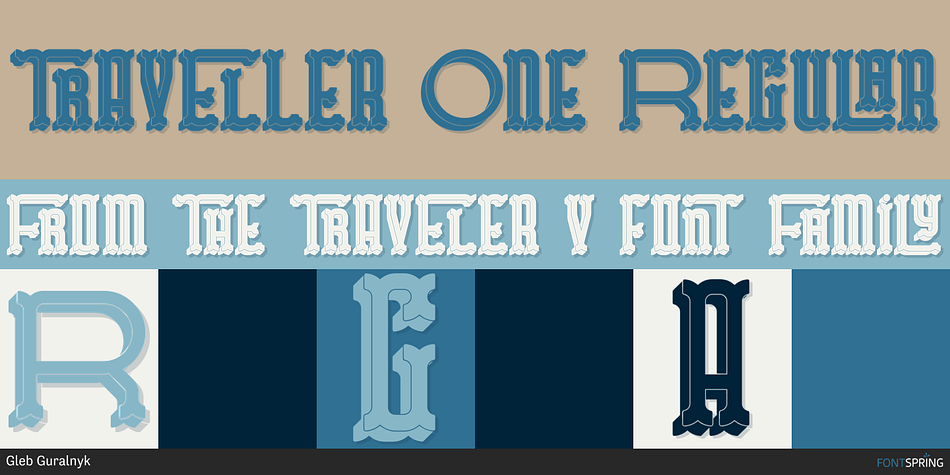
Traveller One Regular
Traveler v2 is a font family. This typeface has six styles and was published by Gleb Guralnyk.
Traveler v.2 Huge update!
Introducing a huge update of wild west style font named "Traveler v.2". Now it includes numbers & punctuation glyps (4th screenshot). Added much more ligatures - 92 instead 32 (6th screenshot). Also I’ve made a small cleanup of all characters paths and kern tuning. It’s not very noticable but important ;)
It has wide and narrow characters, and lots of ligatures (automatically replaceable with open type feature). Trendy extruded effect is made in separate font file, for easy editing and coloring. The canvas texture, that you see on screenshots, it’s just a top layer (included in EPS files).